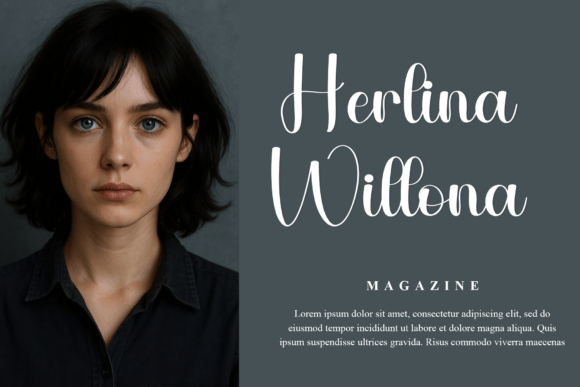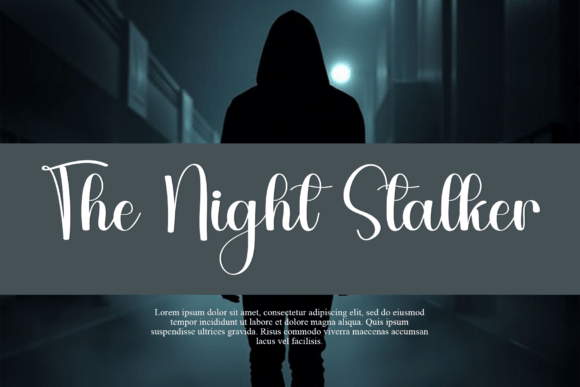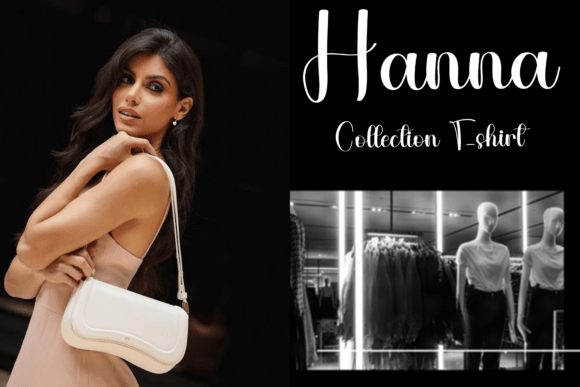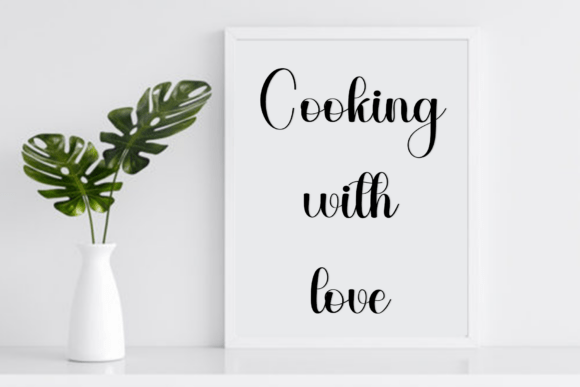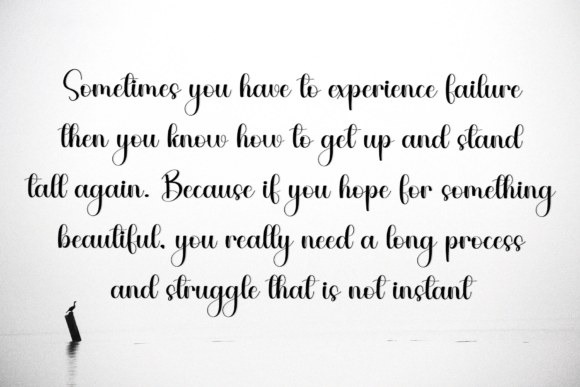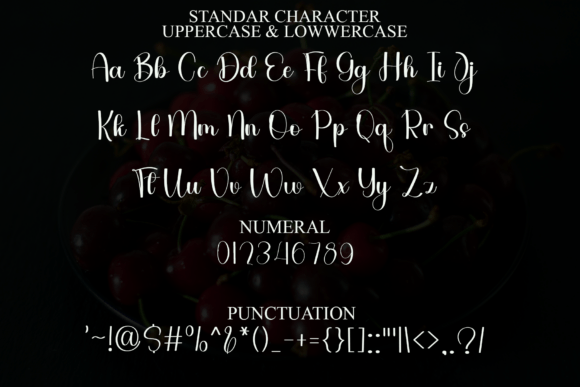
The Perfect Match for Your Next Creative Project
You know that moment when you’re brainstorming ideas for your next project and suddenly, the perfect font pops into your head? It’s like the whole design starts to come together, and you can envision the final result. For me, that moment happened when I discovered the Bridesmaid Font – a casual and creative font that exudes warmth and friendliness.
Bridesmaid Font is the perfect choice for designers who want to add a personal touch to their projects. Its round, playful strokes create a relaxed and approachable feel, making it ideal for invitations, social media graphics, and personal projects. The font’s charming, hand-drawn aesthetic adds a fun and unique touch to any design, setting it apart from more traditional fonts.
Bridesmaid Font Key Features
- Unique Characteristics: The Bridesmaid Font features elegant, cursive script with ornate details and swashes, making it perfect for wedding invitations and other special occasions
Bridesmaid Font Review
Overall, I have mixed feelings about the Bridesmaid Font. While it’s a lovely, elegant script, there are some aspects that may not work for everyone.
- Beautiful, flowing curves that evoke a sense of romance and whimsy.
- Perfect for wedding-related projects, such as invitations and stationery.
- Available in a range of weights and styles, making it suitable for various design needs.
- May be too ornate for some projects, potentially overwhelming the design.
- Lack of versatility outside of wedding-related themes.
- Some characters may not be optimized for digital use, potentially causing issues with text rendering.
While the Bridesmaid Font has its charm, I wouldn’t recommend it for every design project. Its elegance and romance make it perfect for wedding-related themes, but it may not be the best choice for more general use. With some careful selection and styling, it can add a touch of sophistication to the right design, but be mindful of its limitations.
For optimal results, use Bridesmaid Font in conjunction with elegant and feminine design elements, such as lace, flowers, or soft pastels.
Common use cases include wedding invitations, bridesmaid dresses, and wedding stationery.
Alternatives to Bridesmaid Font
Playfair Display is a luxurious, high-end font ideal for elegant wedding invitations and wedding stationery. It features intricate details and ornate flourishes, making it a great choice for sophisticated and classic designs. Compared to Bridesmaid Font, Playfair Display is more elegant and refined, while Bridesmaid Font has a softer, more romantic feel.
Curry Script
Curry Script is a beautiful, handwritten font perfect for adding a personal touch to wedding invitations and other wedding materials. It features flowing lines and elegant curves, making it a great choice for romantic and whimsical designs. Compared to Bridesmaid Font, Curry Script is more playful and expressive, while Bridesmaid Font is more classic and timeless.
Great Vibes is a modern, elegant font ideal for creating a stylish and sophisticated look for wedding invitations and wedding stationery. It features clean lines and geometric shapes, making it a great choice for contemporary and minimalist designs. Compared to Bridesmaid Font, Great Vibes is more modern and sleek, while Bridesmaid Font has a softer, more vintage feel.
Montserrat is a strong, modern font perfect for creating a bold and edgy look for wedding invitations and wedding stationery. It features geometric shapes and clean lines, making it a great choice for industrial and urban designs. Compared to Bridesmaid Font, Montserrat is more modern and edgy, while Bridesmaid Font is more classic and romantic.